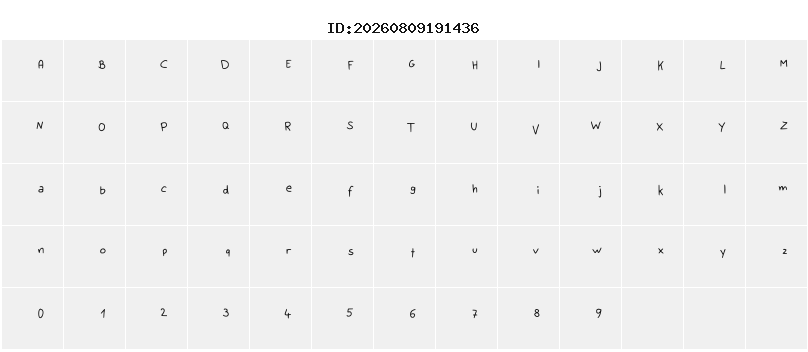
• Font Name: Paper Banner Sans
About Paper Banner Sans.ttf
Paper Banner Sans.ttf is a modern, elegant sans-serif font designed for ultimate readability and visual harmony. Perfect for branding, headlines, web design, and print materials.